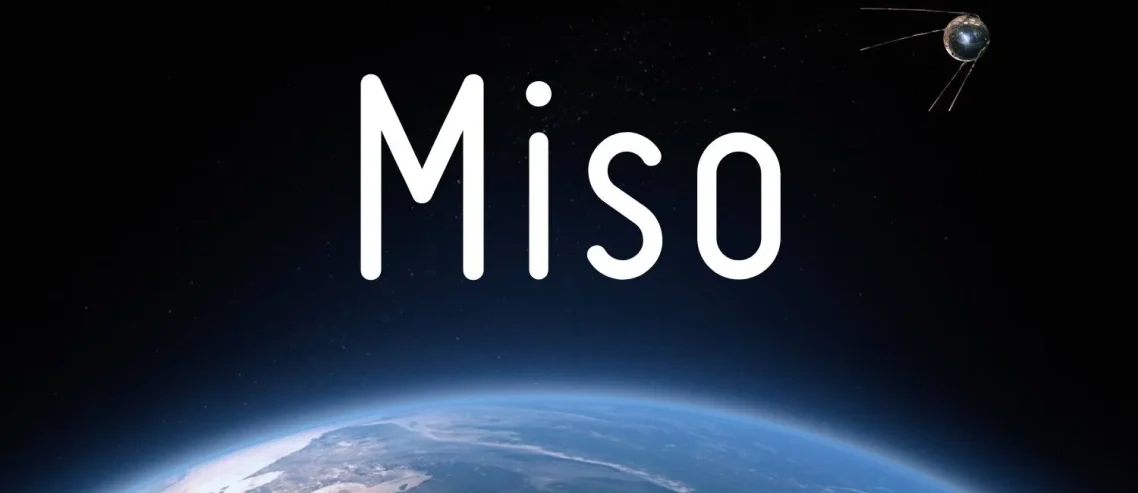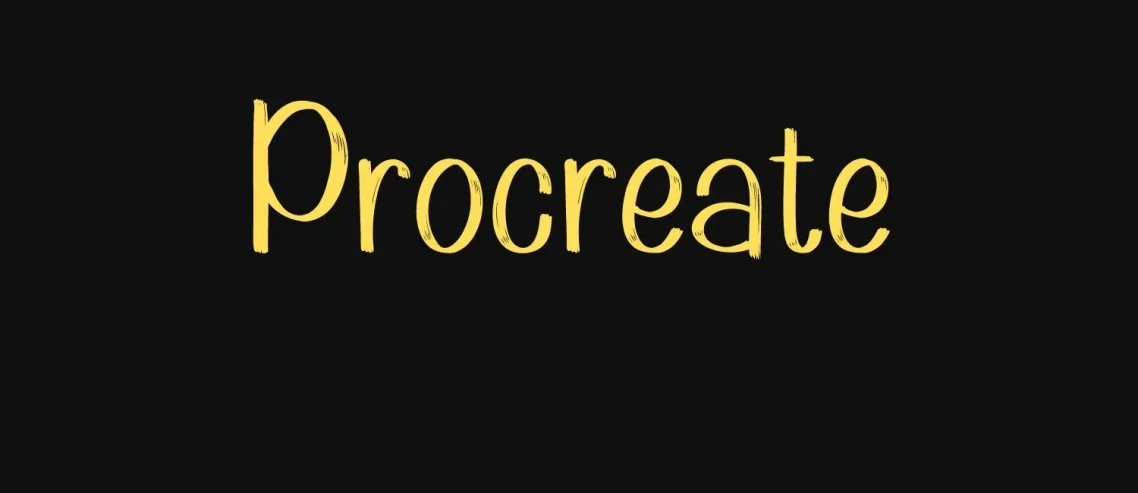
Miso Font Free Download
Miso Font has an appealing and unique character set. This popular typeface was designed by Marten Nettelbladt. You can download this stunning typeface from our website in OTF and TTF formats. This stunning font lies under the Sans-Serif font family. You can pair this fabulous Sans-Serif typeface with shakehand typeface font to give a unique …
Moderne Fraktur Font Free Download
The Moderne Fraktur font is a typeface that was designed in the early twentieth century. The font was created by German-type designer Rudolf Koch, who also designed the Kabel and Neuland typefaces. Koch based the Moderne Fraktur design on old-style blackletter fonts but made some modifications to make the font more legible. It has a …
Lightshot Font Free Download
Lightshot Font is a famous texture due to its stylish characters. This stunning typeface was constructed by Arendxstudio. You can download this font in Open-type and True-type formats. It is available in single regular weight. You can pair this amazing typeface with continua font to give a unique touch to your project. The high readability …
Chicano Font Free Download
Chicano Font is a font that originates from the Chicano community in the United States. It is a highly stylized form of writing that often includes colorful and intricate designs. Chicano Font is often used to decorate public spaces or to make political statements. The origins of this Font can be traced back to the …
Squid Game Font Free Download
Squid Game Font, also known as “Tentacles” or “Octopus”, is a typeface designed by Vince Foster in 2001. This Font family includes four fonts: Regular, Italic, Bold, and Bold Italic. This Font is specially designed for use in video games. It is based on the popular “Comic Sans” font and features a number of different …
Procreate Font Free Download
Procreate Font has unique characteristics which made it worldwide famous in a short period. This unique typeface belongs to the Brush font family. This typeface comes in single regular weight. Procreate is a graphic editing app that was designed by an Australian company named Savage Interactive and this app was published on March 16, 2011. …